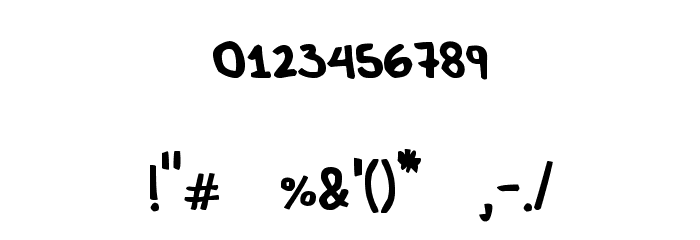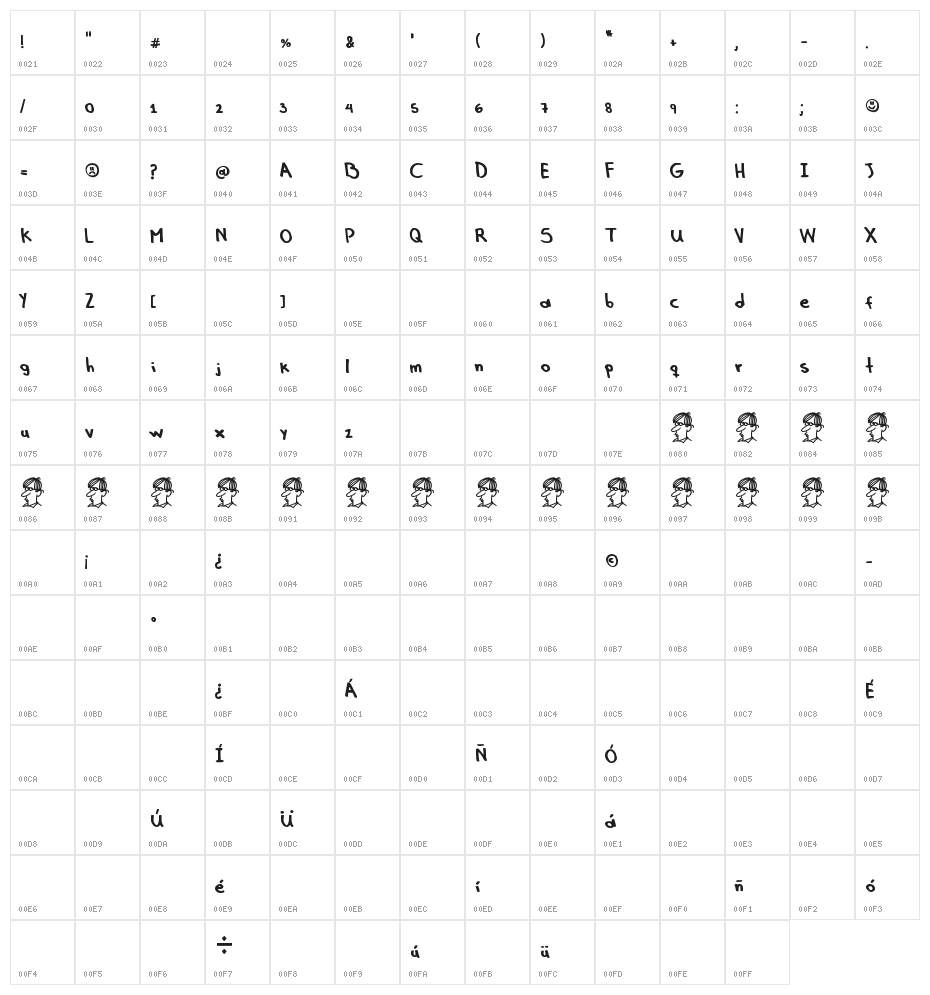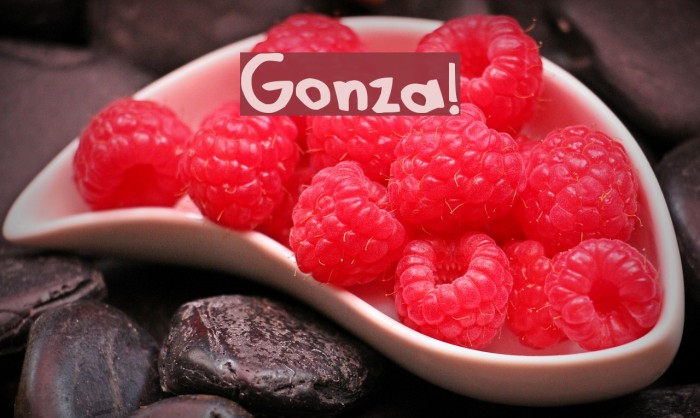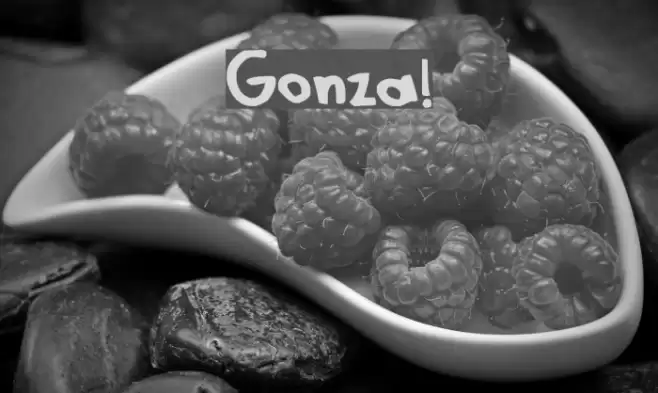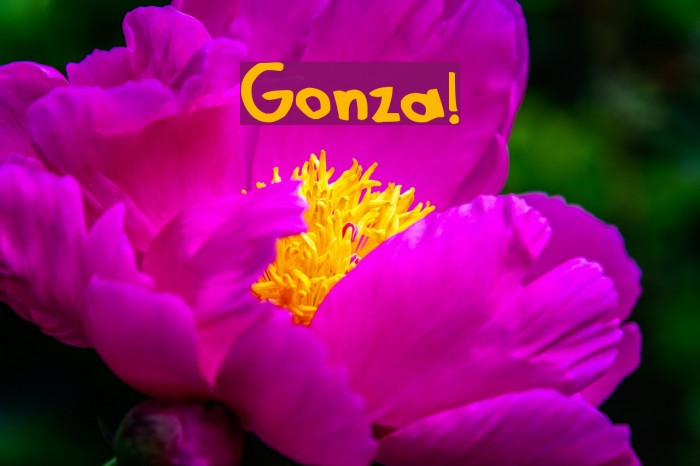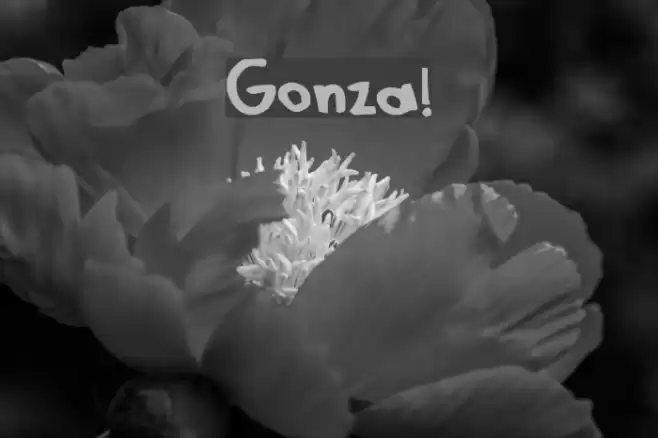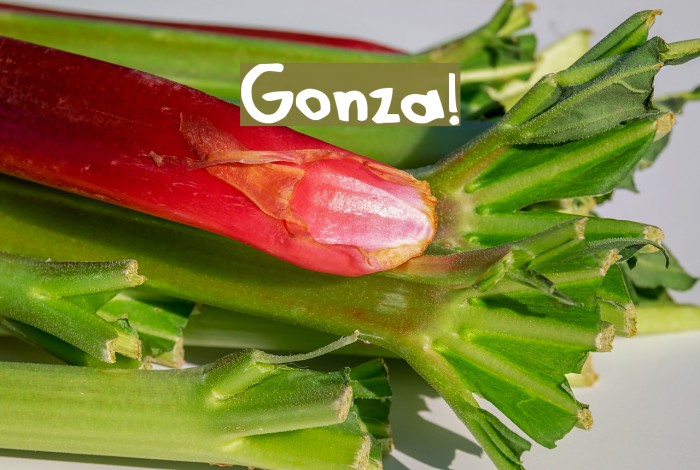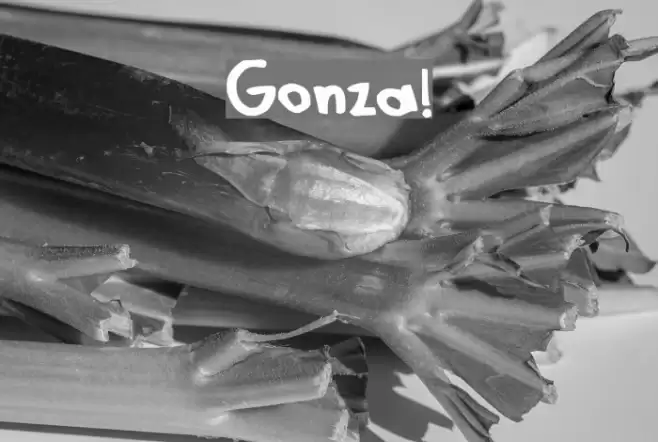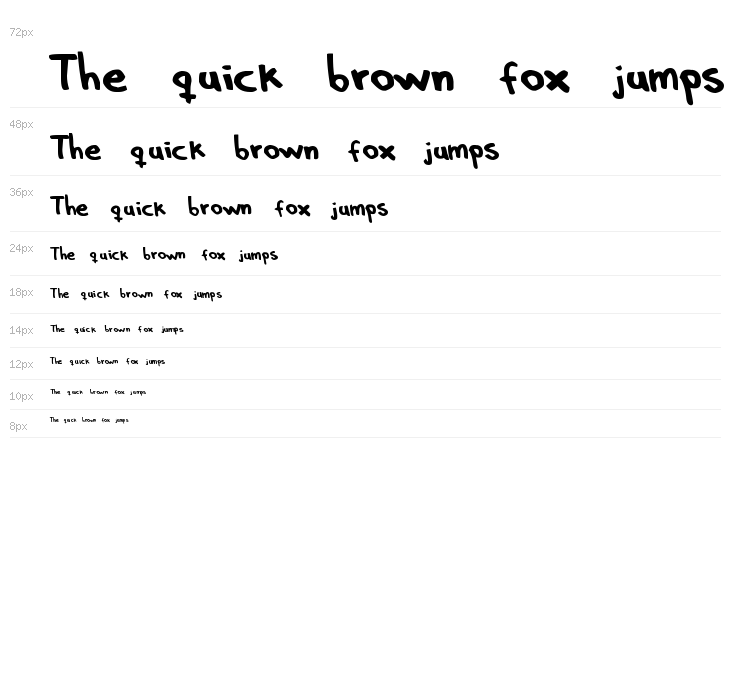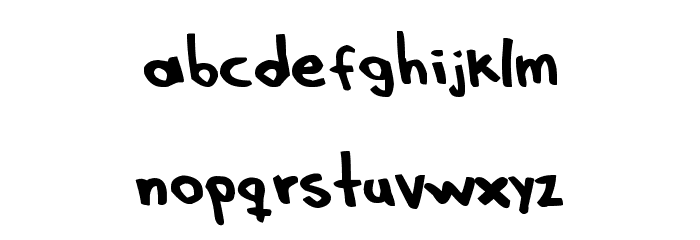
Gonza! Font
Gonza! Description
This playful and informal font features a handwritten style with a slightly irregular baseline, giving it a casual and friendly appearance. The characters are bold and rounded, with a consistent stroke width that adds to its approachable feel. The uppercase letters are slightly larger than the lowercase, maintaining readability while adding a touch of whimsy. The numbers and special characters follow the same style, ensuring a cohesive look across all text elements. This font is ideal for projects that require a personal touch or a fun, lighthearted vibe.